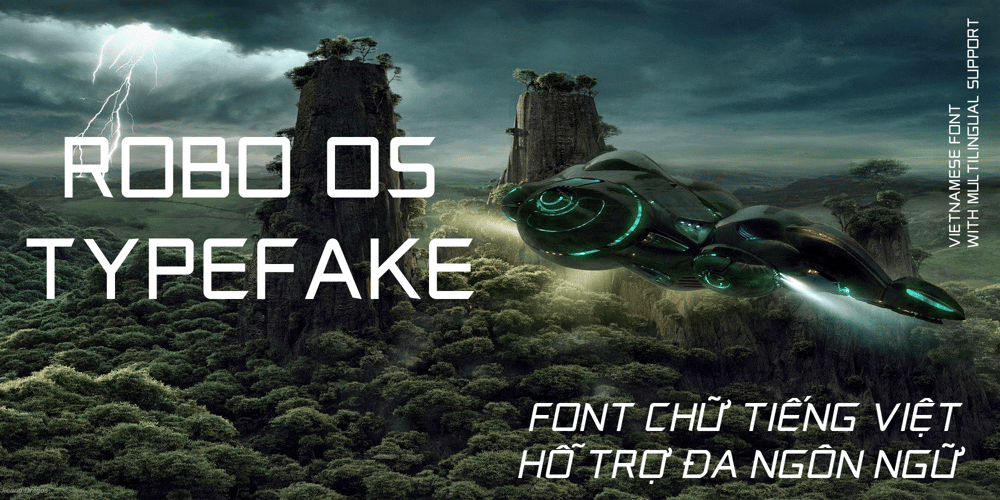
Robo OS Font Family was designed by Hieu Phan Thanh and published by OS CORP. Robo OS contains 4 styles and family package options. Robot OS CORP AI Wrote version: 2.0 is the first version, including 340 characters, there are 4 types of handwriting that are: Regular (Regular); Italic (Italic); Bold (Bold); Bold Italic (Bold Italic).The sturdy, strong, robot-like design is the idea to design this typeface